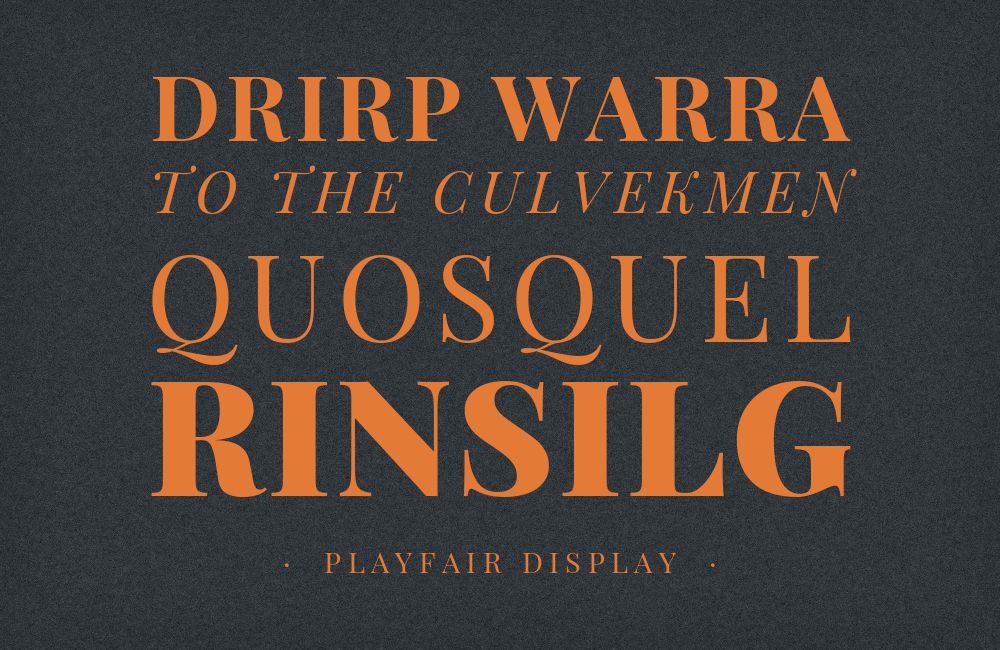
Playfair Display pairs great with Source Sans Pro, Montserrat and Helvetica Neue. All 15 pairings are shown below in real rendered specimens, with the reason each one works.
What fonts go with Playfair Display? This high-contrast display serif with dramatic thick-thin transitions requires partners that can support its theatrical presence without fighting for the spotlight.
Playfair Display, designed by Claus Eggers Sørensen, draws on the tradition of late 18th-century European type design, when advances in printing technology allowed for greater stroke contrast and finer hairlines. The typeface features large x-height, elegant ball terminals, and distinctive details like the curled ear on the lowercase ‘g.’ While clearly inspired by historical models, Playfair Display is a display (large size) design, made for headlines rather than body text.
The challenge with Playfair Display is its intensity. The dramatic contrast that makes it beautiful in headlines would be fatiguing as body text, so pairing inevitably involves finding reading fonts that can carry the content while Playfair handles the drama. Sans-serifs can provide modern minimalism that lets Playfair’s elegance shine, while lower-contrast serifs can create harmonious classical combinations. Here are 15 fonts that pair well with Playfair Display, selected for their ability to support rather than compete with its commanding presence.
1. Source Sans Pro
Playfair Display’s theatrical hairline strokes and dramatic thick-thin contrast find their perfect understated partner in Source Sans Pro. Where Playfair struts across the stage with 18th-century elegance, Source Sans quietly handles the supporting role with Adobe’s meticulous attention to screen legibility. The pairing works because Source Sans Pro’s generous x-height and open apertures ensure body text remains readable at small sizes, while Playfair’s high-contrast serifs command attention in headlines. Ideal for luxury editorial, literary magazines, and high-end restaurant branding where you want old-world sophistication without sacrificing digital clarity.
This pairing is a study in temporal tension. Playfair Display, with its Baskerville-inspired elegance and transitional serif structure, carries the gravitas of 18th-century European printing. Montserrat answers with the geometric confidence of Buenos Aires signage from the first half of the twentieth century. The contrast works precisely because it shouldn’t: Montserrat’s even stroke weight and circular forms provide visual rest from Playfair’s sharp stress angles and delicate hairlines. Use this combination for fashion editorials, architectural portfolios, or boutique hotel branding where you need both historical weight and contemporary accessibility.
3. Helvetica Neue
Pairing Playfair Display with Helvetica Neue is like serving champagne in a minimalist glass. Playfair’s extravagant ball terminals and dramatic thick-thin modulation get all the attention they deserve when set against Helvetica Neue’s studied neutrality. This is Swiss precision meeting French rococo, and somehow it works beautifully. The key is letting Playfair handle headlines while Helvetica Neue’s exceptional x-height and uniform stroke width carry body text without competing for attention. Georgia First Bank’s brand guide lists Playfair Display as its branded font and Helvetica Neue as its secondary font. Perfect for luxury brand campaigns, high-fashion lookbooks, and gallery exhibition materials.
4. Lato
Lato‘s semi-rounded details and humanist warmth create an unexpectedly harmonious relationship with Playfair Display’s sharp, formal elegance. Where Playfair commands with its high-contrast strokes and refined serifs, Lato offers approachable body text that doesn’t undermine the headline’s authority. The magic lies in Lato’s subtle curves softening the transition between Playfair’s theatrical presence and lengthy reading passages. This pairing suits lifestyle publications, upscale hospitality brands, and wedding invitations where you want elegance without pretension.
5. Open Sans
Open Sans brings democratic accessibility to Playfair Display’s aristocratic sensibilities. Steve Matteson gave Open Sans a neutral, yet friendly appearance and optimized it for print, web, and mobile interfaces, making it the ideal workhorse for body text beneath Playfair’s ornate headlines. The generous letter spacing and open apertures of Open Sans ensure comfortable reading at any screen size, while Playfair’s high-contrast serifs and dramatic axis provide visual hierarchy. Deploy this combination for luxury e-commerce, lifestyle blogs, and editorial platforms where readability must coexist with refinement.
6. Roboto
Roboto‘s mechanical skeleton with organic curves creates a surprisingly effective counterpoint to Playfair Display’s classical elegance. Google designed Roboto as the system font for Android, giving it a generous x-height and friendly geometry that reads effortlessly in body text. Meanwhile, Playfair’s 18th-century DNA and pronounced thick-thin contrast ensure headlines feel special. The contrast between Roboto’s contemporary approachability and Playfair’s historical formality works for brands bridging traditional values with modern accessibility.
7. Poppins
Poppins brings pure geometric circularity to Playfair Display’s angular sophistication. This Indian Type Foundry typeface’s perfectly round bowls and even stroke weight provide visual calm beneath Playfair’s high-drama serifs and stressed axis. The pairing succeeds because both fonts share excellent craftsmanship while occupying completely different stylistic territories. The result feels simultaneously classic and contemporary. Use this for startup branding that wants gravitas, tech companies with creative services, or editorial design seeking geometric balance with traditional elegance.
There are no absolute rules for font pairing, just principles to guide you. The key is contrast—in weight, in style (serif vs. sans-serif), or in personality. Playfair Display is versatile enough to play well with many different typefaces.
Trust your eye, experiment freely, and remember that the best pairing is the one that serves your content and audience. Typography should enhance communication, not complicate it.